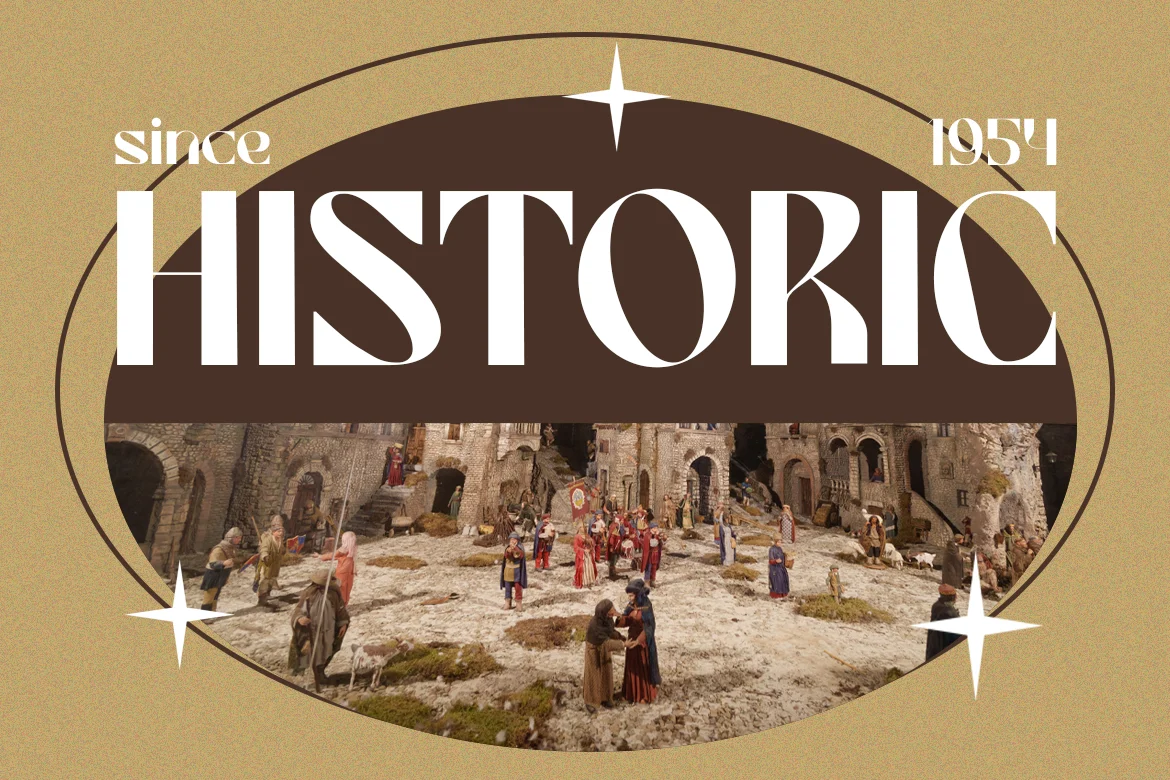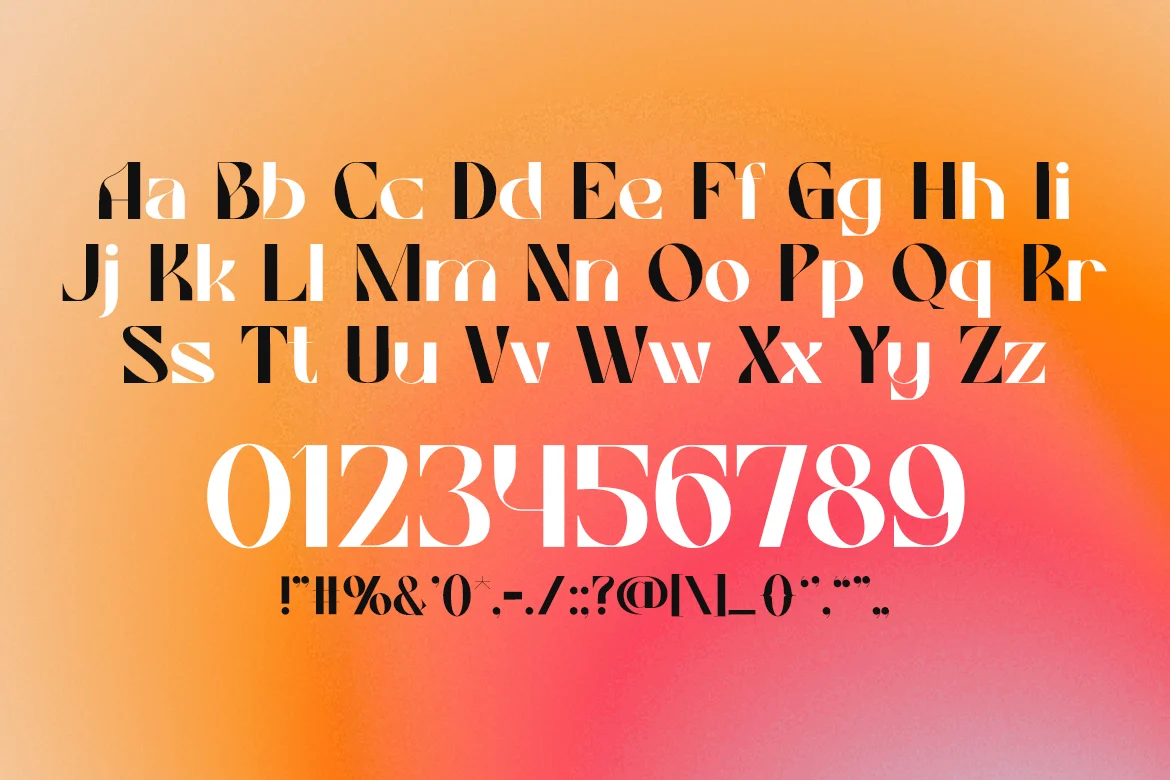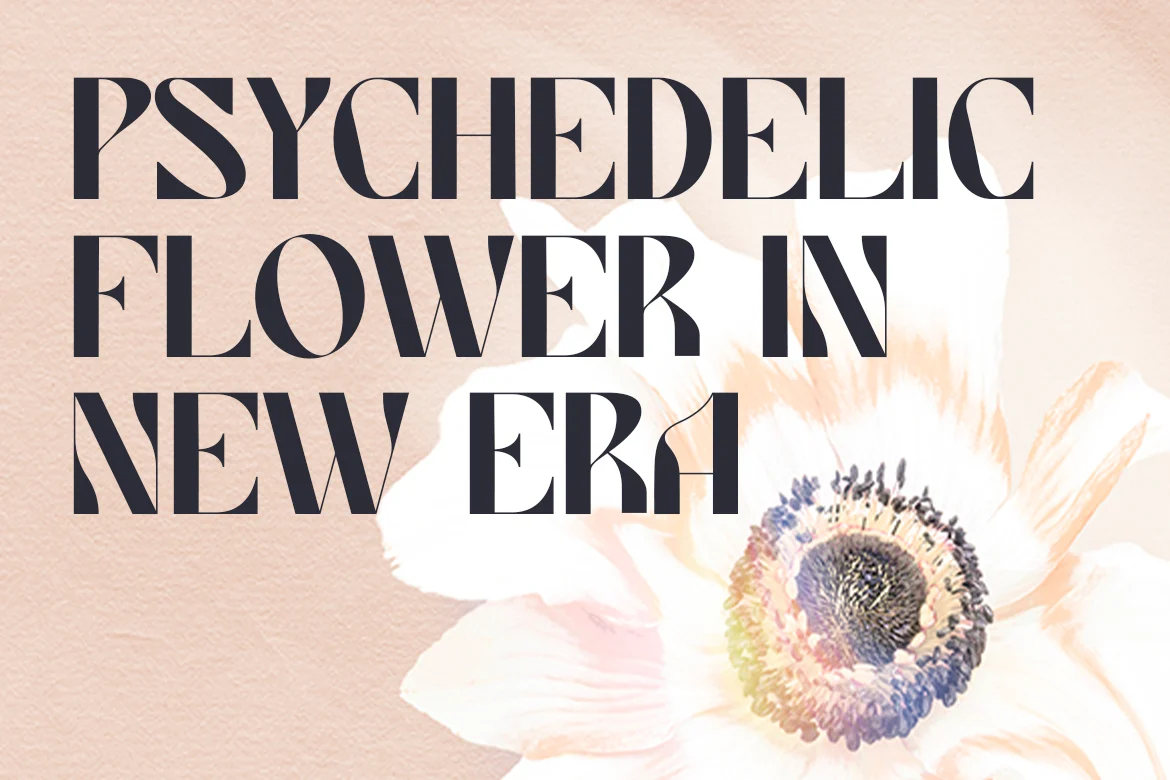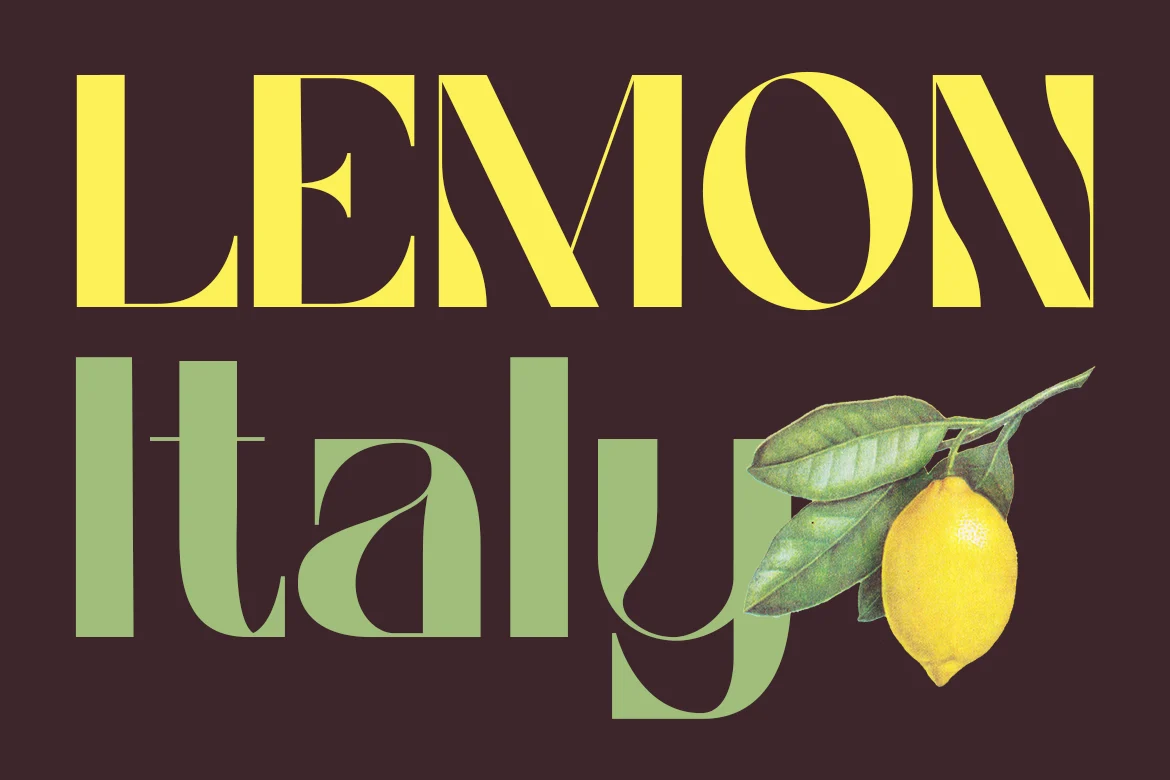
Warren – Modern Luxury Font
Meet Warren, a high-contrast serif display font that commands attention with bold strokes and elegant curves. Crafted for luxury design, it blends dramatic cutaways with editorial finesse — creating an unforgettable typographic statement. Its sculpted letterforms and razor-sharp terminals make it a perfect fit for fashion covers, perfume packaging, or any layout where sophistication meets attitude. From the delicate sway in the “A” to the confident flair of its uppercase forms, Warren thrives in premium visual storytelling.
Elevate your next campaign with a typeface that embodies modern glamour. Warren is tailor-made for branding teams, editorial designers, and luxury creators seeking a powerful serif that balances edge and elegance. It’s the kind of font that turns product names into fashion icons and headlines into moments of drama.
Make a bold entrance with Warren — the serif display font that adds couture-level drama to every project. Perfect for high-fashion branding, premium launches, and creative professionals who don’t settle for quiet type.